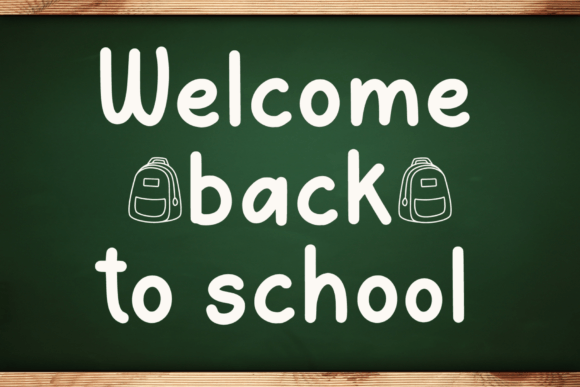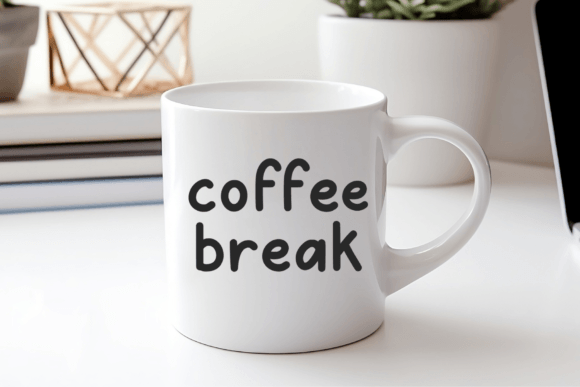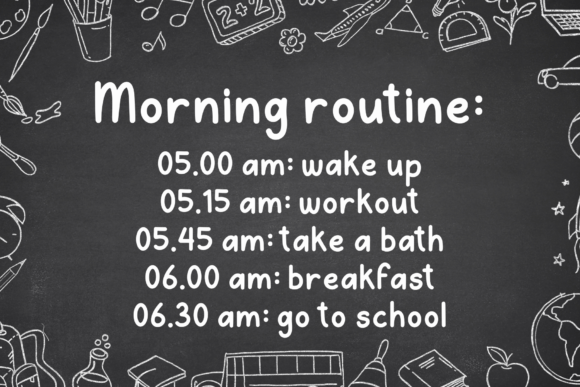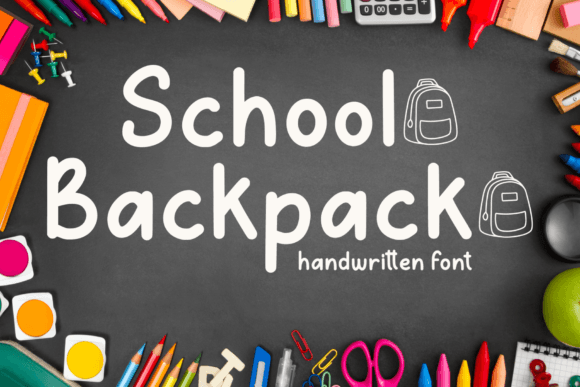
Introduction to School Backpack Font
School Backpack is a simple handwritten font with a single line.
It is casual, cute, and fun Its playful curves and genuine charm evoke a sense of warm nostalgia, making it perfect for projects related to school designs, birthday invitations, summer designs, mug designs, crafting, stickers, sublimations, and much more.